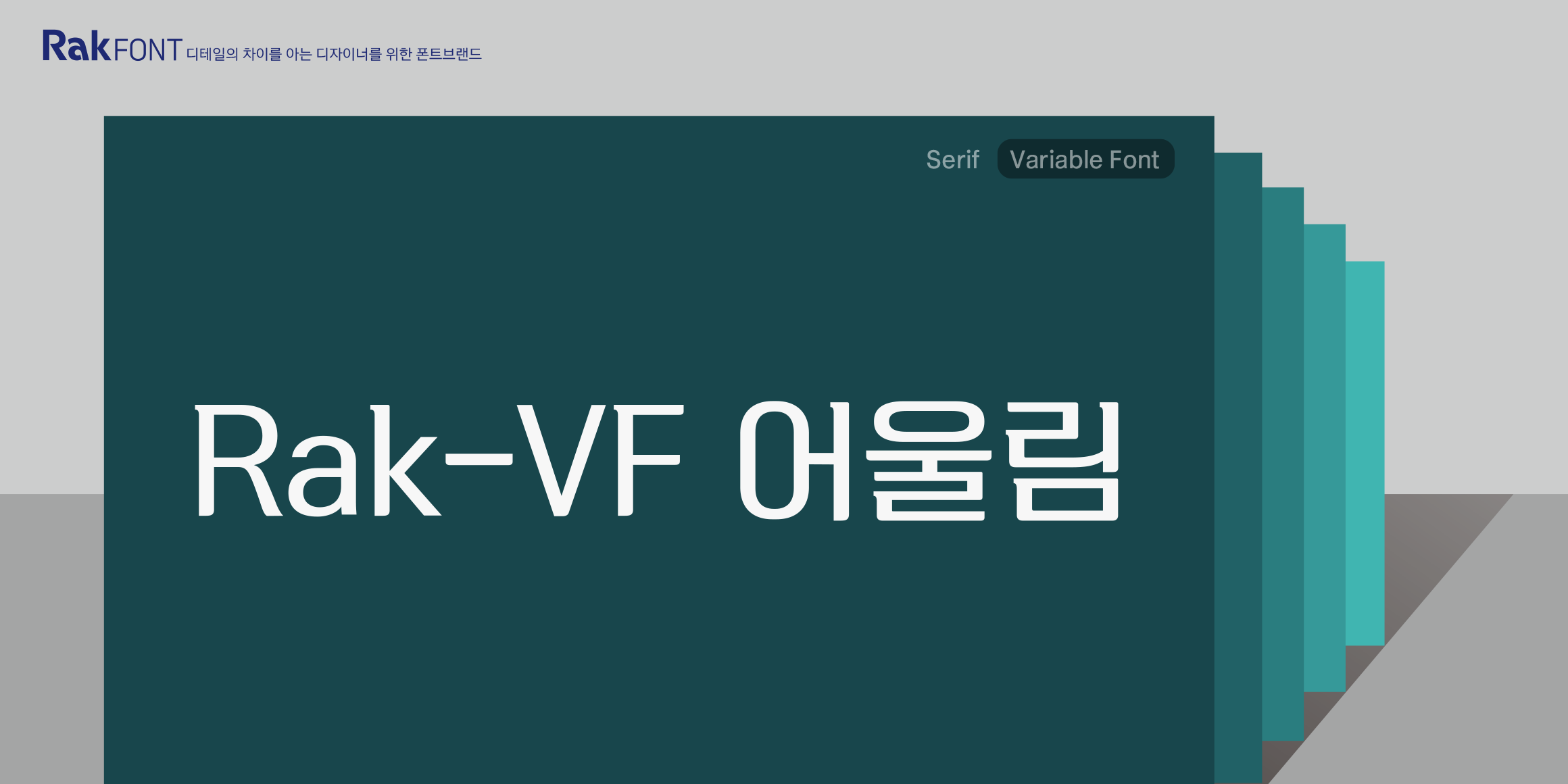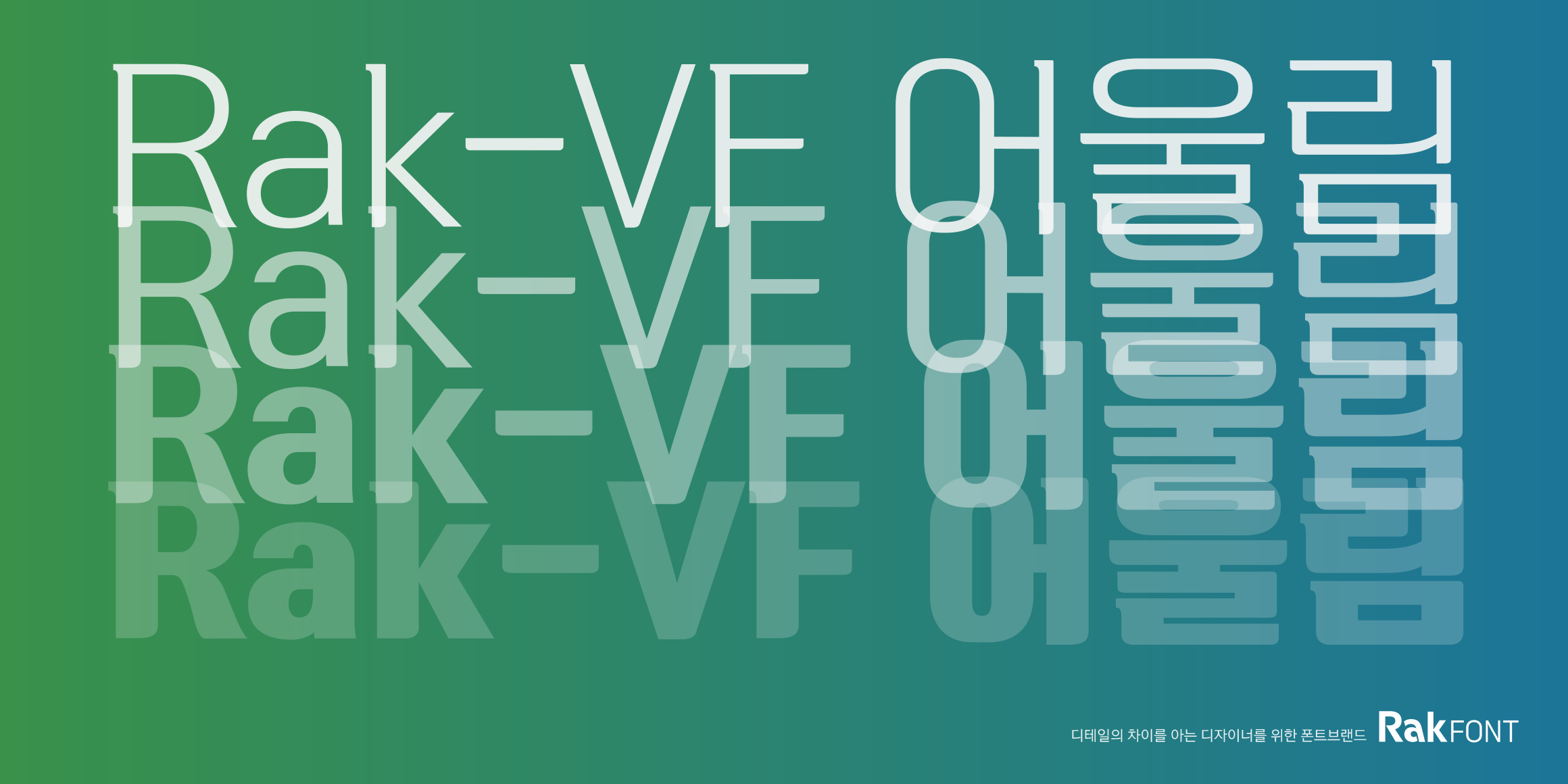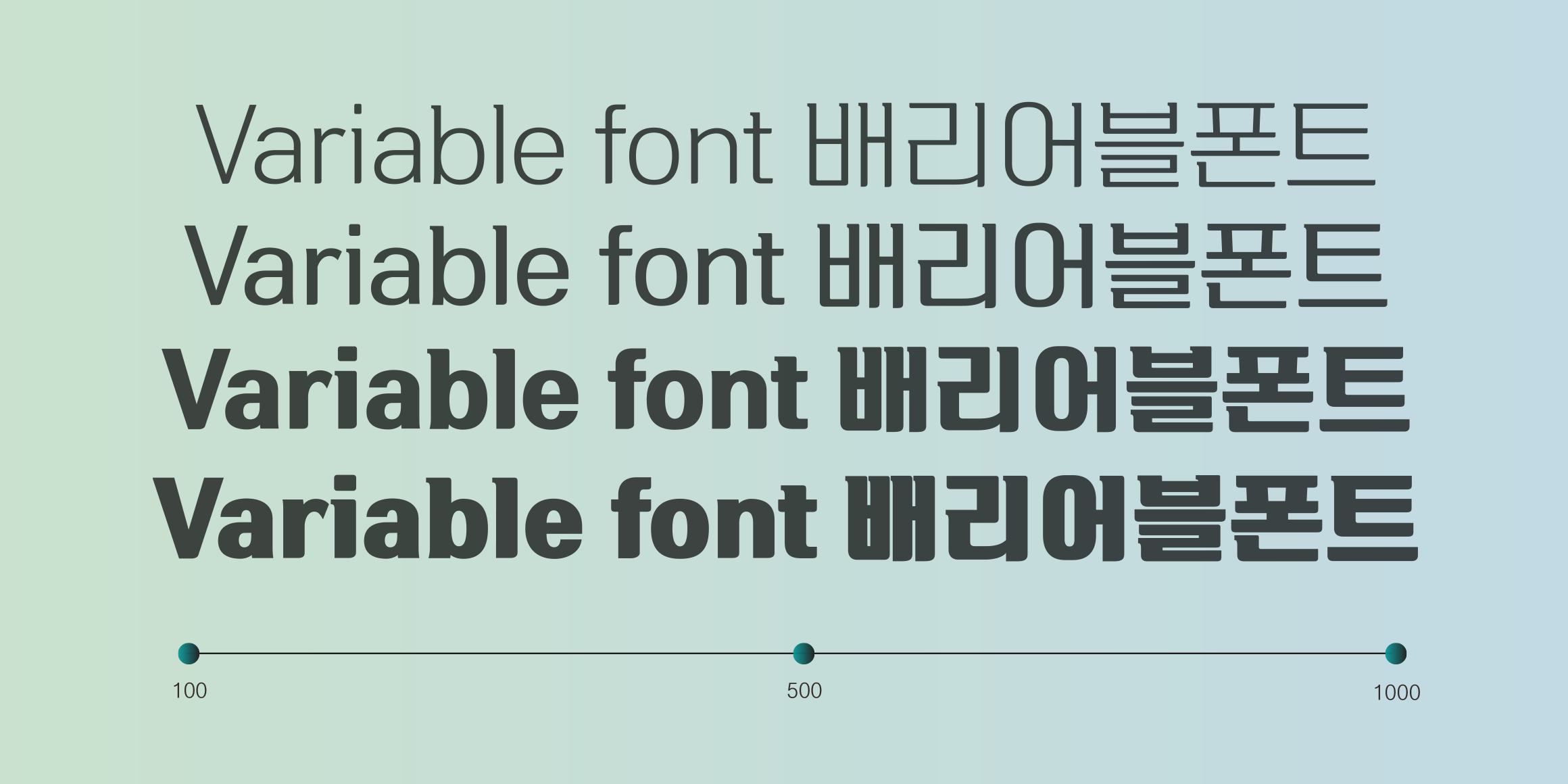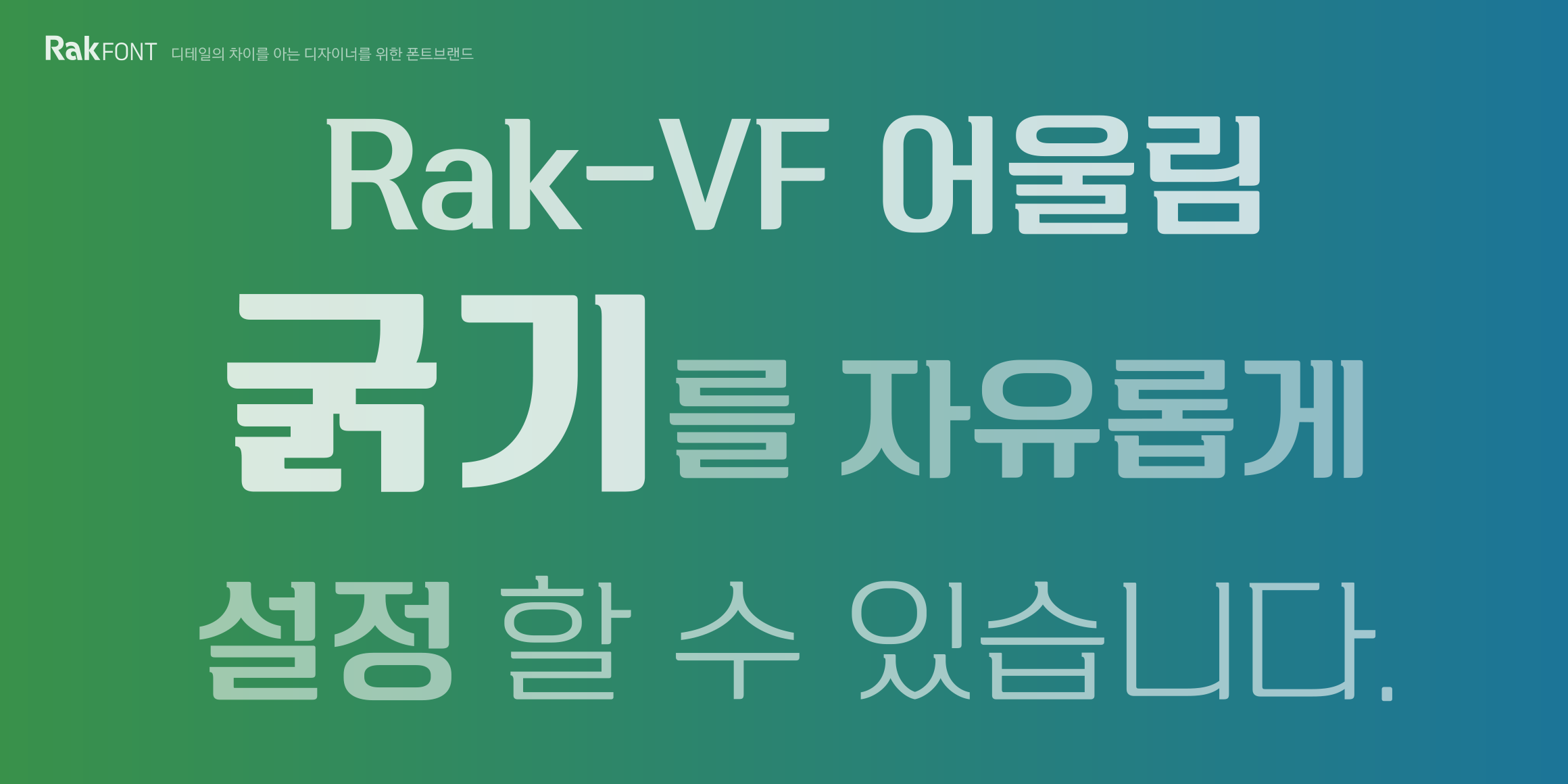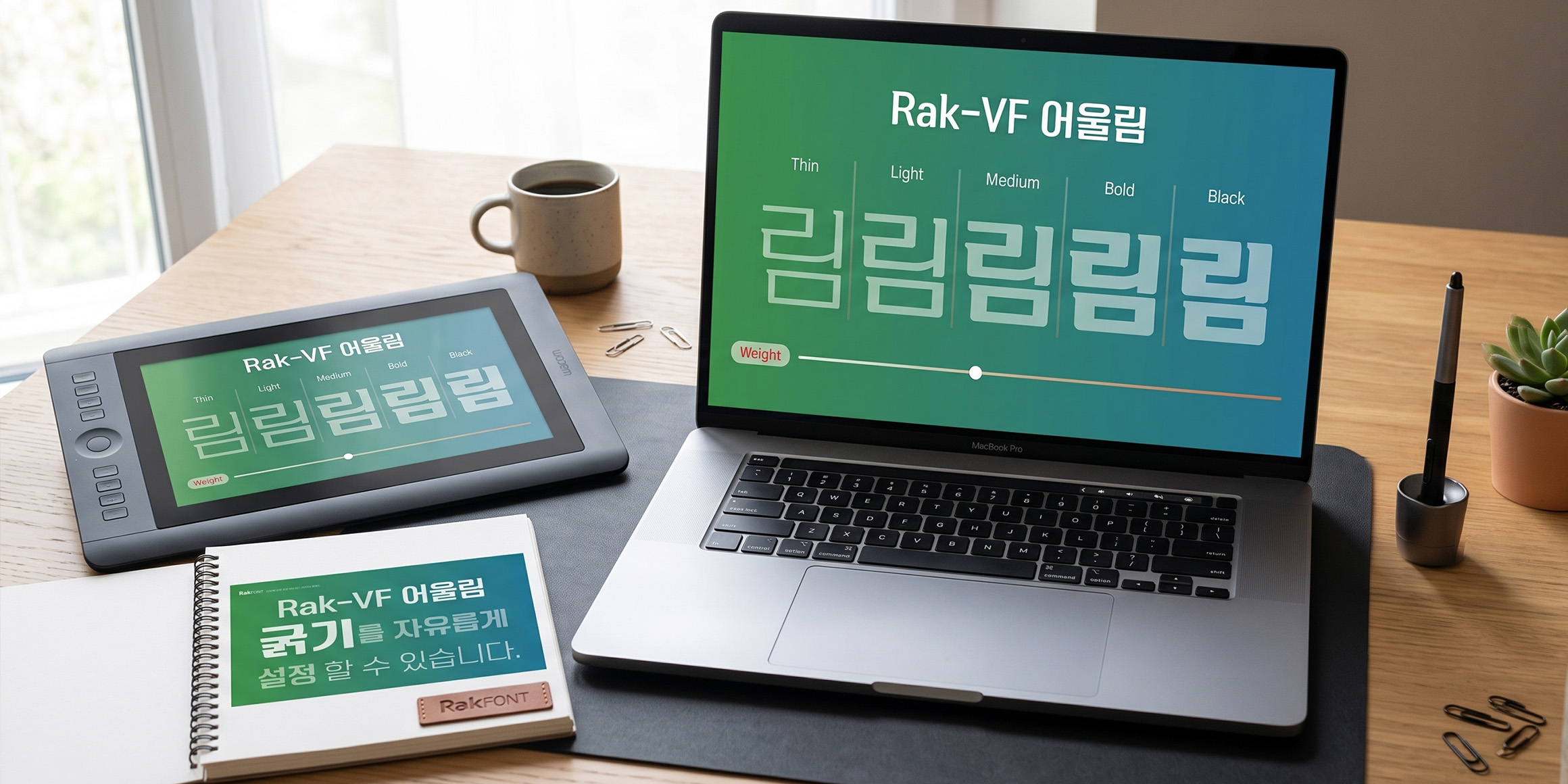
Variable
Variable technology has been added to the perfect harmony of a robust square-frame skeleton and flowing curves. With limitless, fine-grained weight control, it delivers the most natural harmony to your content.
- Park Yong-rak
- Buri,Mincho,Serif
- Rak-VF 어울림 / Rak-VF_Harmonize